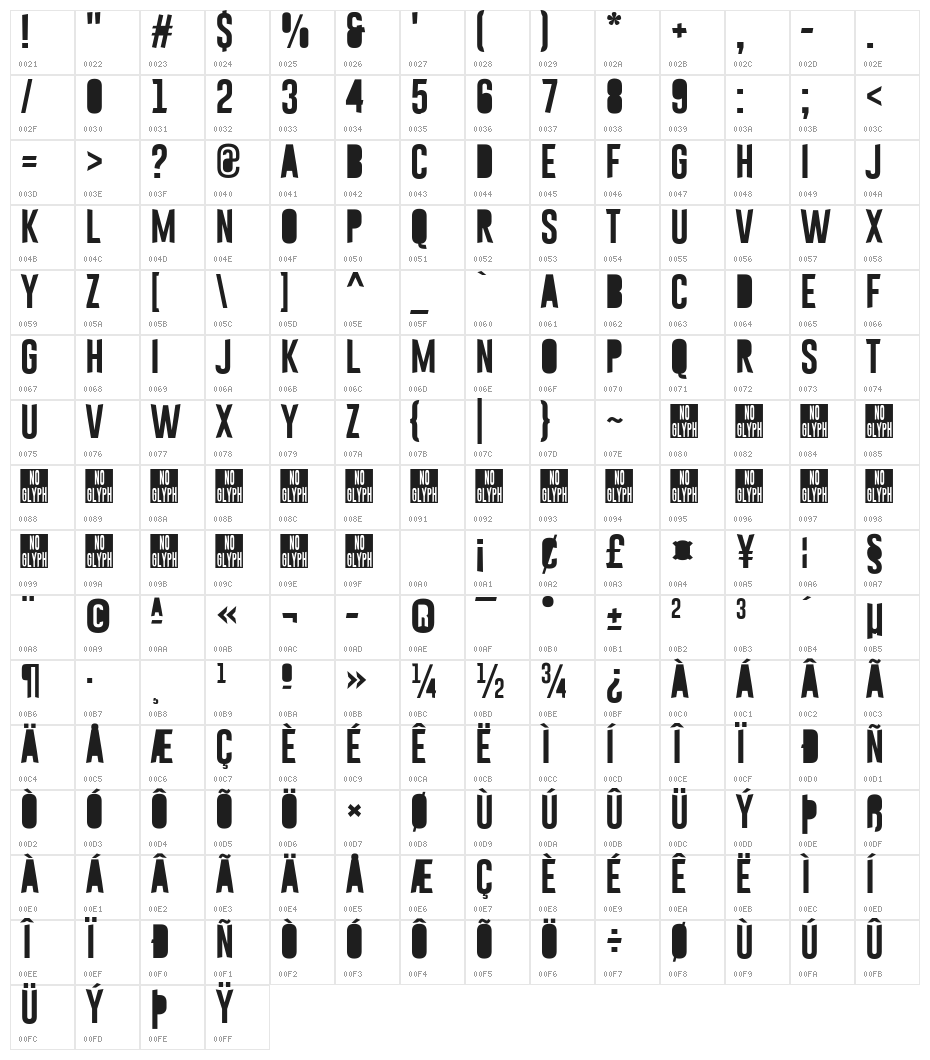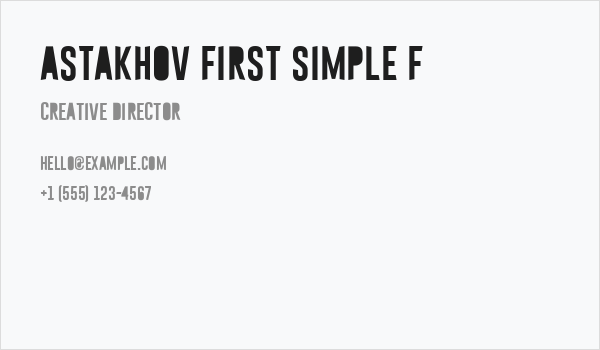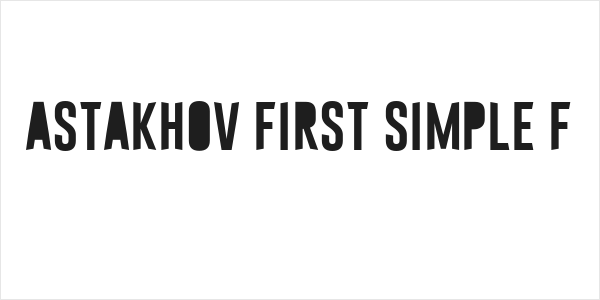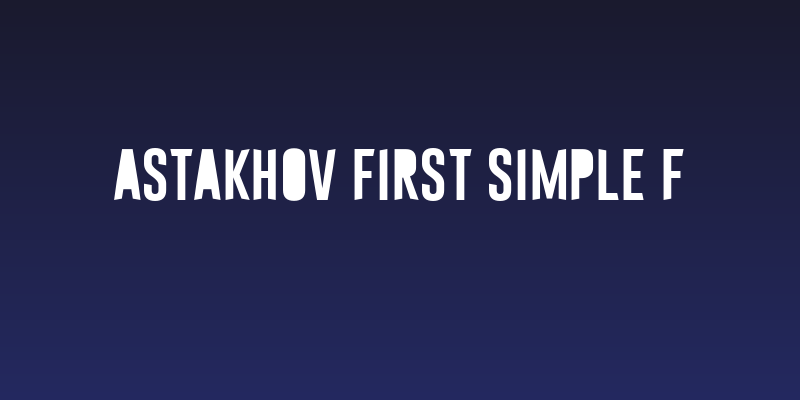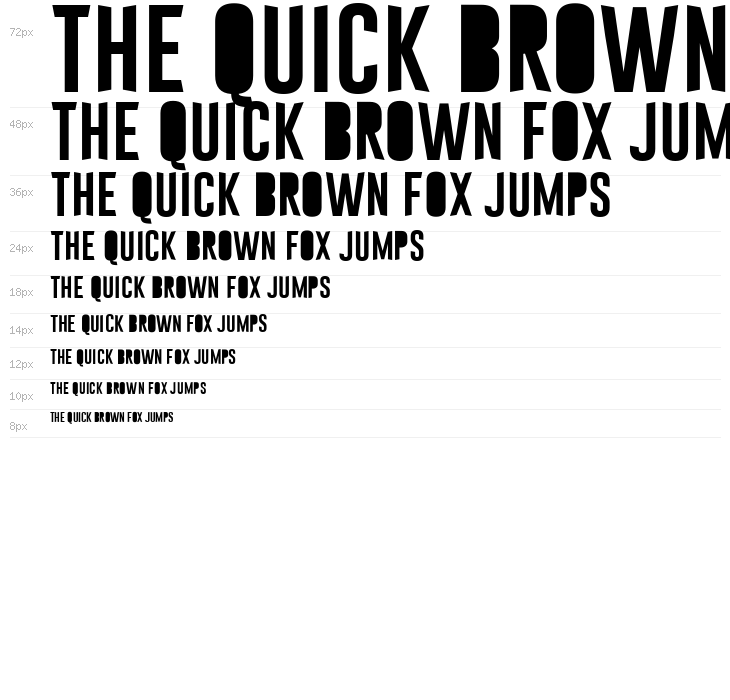
Astakhov First Simple F Font
Astakhov First Simple F Description
This bold, sans-serif font features a strong, impactful design with thick strokes and a modern aesthetic. The uppercase letters are uniform in height, creating a cohesive and powerful visual presence. The numbers and special characters maintain the same boldness, ensuring consistency across all elements. The font's design is straightforward yet striking, making it suitable for attention-grabbing headlines and signage. Its clean lines and lack of serifs contribute to a contemporary feel, while the bold weight adds a sense of authority and emphasis.
| Use Case | Headlines, Signage, Branding |
| Proposed Projects | Ideal for headlines, posters, signage, and branding projects that require a strong visual impact. |